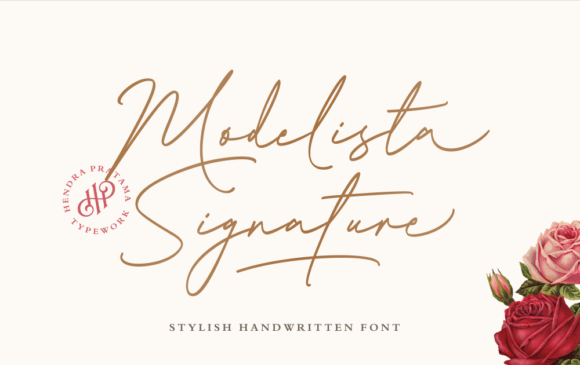
Introducing Modelista Font, the epitome of elegance and sophistication! Crafted by hptypework, this stunning script font is perfect for those seeking the best font for wedding cards and more. With its unique style of calligraphy, Modelista Signature breaks free from traditional calligraphy scripts, offering a contemporary twist that will captivate your senses.
Whether you're designing wedding or event invitations, creating an original signature logo, or even working on religious art, Modelista Font is your ultimate companion. Its versatility knows no bounds, making it a must-have for professionals in the film and TV industry as well.
Modelista Font boasts two main sub-styles: traditional calligraphy and modern calligraphy. This dynamic duo allows you to explore the beauty of both worlds, offering endless possibilities and ensuring your creations stand out from the crowd.
Immerse yourself in the modern and elegant charm of Modelista Font. With its graceful strokes and impeccable curves, this font exudes a sense of refinement that is unparalleled. Your designs will shine with a touch of sophistication that is guaranteed to leave a lasting impression on your audience.
But what truly sets Modelista Font apart from the rest is its ability to evoke emotions. With every letter, it tells a story, imbuing your projects with a sense of passion and authenticity. Let your creativity soar as you unleash the power of Modelista Font, bringing your visions to life in the most enchanting way possible.
In a world where first impressions matter, choosing the right font is crucial. Modelista Font ensures that your message is delivered with utmost elegance and clarity, leaving no room for mediocrity. It effortlessly transforms ordinary words into extraordinary works of art, making your designs truly unforgettable.
So why wait? Elevate your creative endeavors with Modelista Font. With its captivating allure and keyword-rich features, this font is the secret weapon every designer needs. Unlock a world of possibilities and embrace the beauty of calligraphy in its most modern and awe-inspiring form.